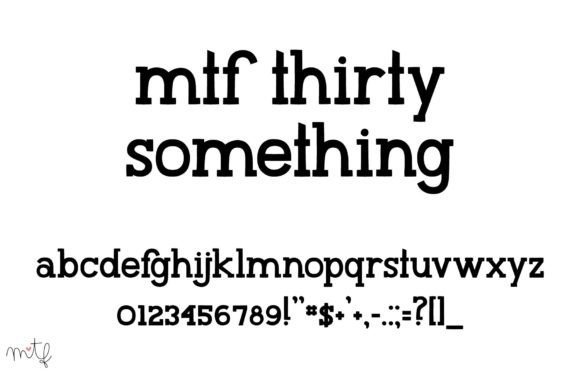
Thirty Something: A Majestic and Balanced Slab Serif Font
Thirty Something is a majestic, clear, and perfectly balanced slab serif font. Its bold and well-rounded characters make it ideal for catching viewers’ attention. Furthermore, this typeface shines in posters, banners, marketing materials, and any design that needs to stand out.
Key Features of Thirty Something
- Majestic Design: Offers a commanding and impressive look.
- Clear Structure: Features well-defined, easily readable letterforms.
- Balanced Style: Provides perfect harmony in its character design.
- Bold Characters: Makes a strong visual impact with thick, distinctive strokes.
Best Uses for Thirty Something
Thanks to its striking characteristics, Thirty Something works especially well for:
- Eye-catching posters
- Striking banners
- Bold marketing materials
- Attention-grabbing headlines
- Impressive display text
- Strong advertising designs
- Powerful brand messages
When using Thirty Something in your designs, keep these tips in mind:
- Use for headlines or short text to show off its majestic style.
- Try different sizes to make the most of its clear letterforms.
- Pair with simpler fonts for body text to create contrast.
- Let its bold characters grab attention in your layouts.
To sum up, Thirty Something is an excellent choice for designers seeking a majestic and perfectly balanced slab serif font. Its bold and well-rounded characters make it perfect for attention-grabbing designs. Whether you’re creating posters, designing banners, or developing marketing materials, Thirty Something offers the perfect mix of clarity and impact.
Moreover, Thirty Something’s unique design allows it to shine in contexts where visibility is key. For instance, from marketing materials to display text, this font can lift your projects with its commanding presence. Also, its clear yet bold appearance works particularly well in designs that aim to catch and hold viewers’ attention.
In conclusion, Thirty Something truly captures the essence of majestic design in slab serif typography. Its perfect balance of boldness and clarity shows how well it can serve various creative needs. Therefore, for those wanting to add a touch of commanding presence to their work, Thirty Something can enhance any design with its distinctive style. Ultimately, it’s perfect for designers aiming to make a strong, memorable impact across attention-demanding projects.